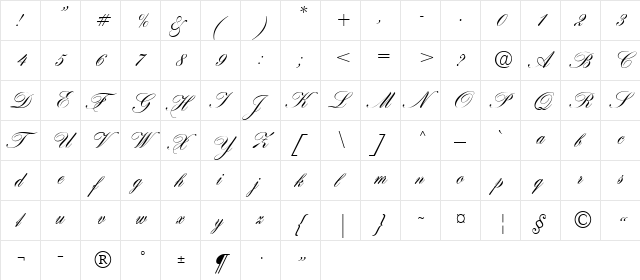
Hogarth script Regular
| Foundry | FontLab 4.6 by Alexandra Gophmann (aka Fee) (rusification original font LT Hogart Scr) |
| Designer | Fee (Alexandra Gophmann) |
Design Context for Hogarth script Typeface
Hogarth script flows with the natural rhythm of handwritten lettering, making it ideal for designs that call for warmth and personal expression.
Font Pairing: Combine Hogarth script with a simple geometric sans for maximum contrast — the tension between flowing curves and clean structure is a classic typographic pairing.
Pro Tip: Pair Hogarth script with a clean sans-serif for supporting text. The contrast between fluid script and geometric structure creates an elegant typographic hierarchy.